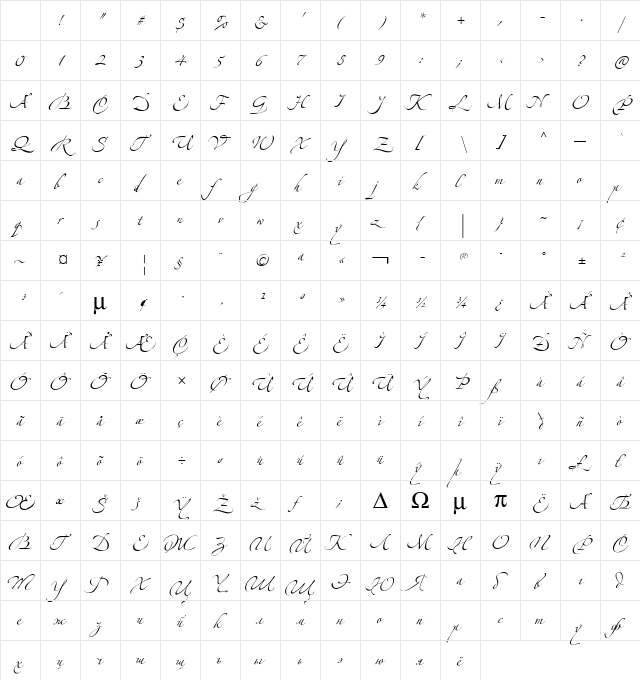
Complete Zeferino One Regular glyph index. Displaying only characters natively supported by Zeferino One Regular font.
Zeferino One is a composed and adaptable typeface that performs quietly and consistently across a wide range of design contexts.